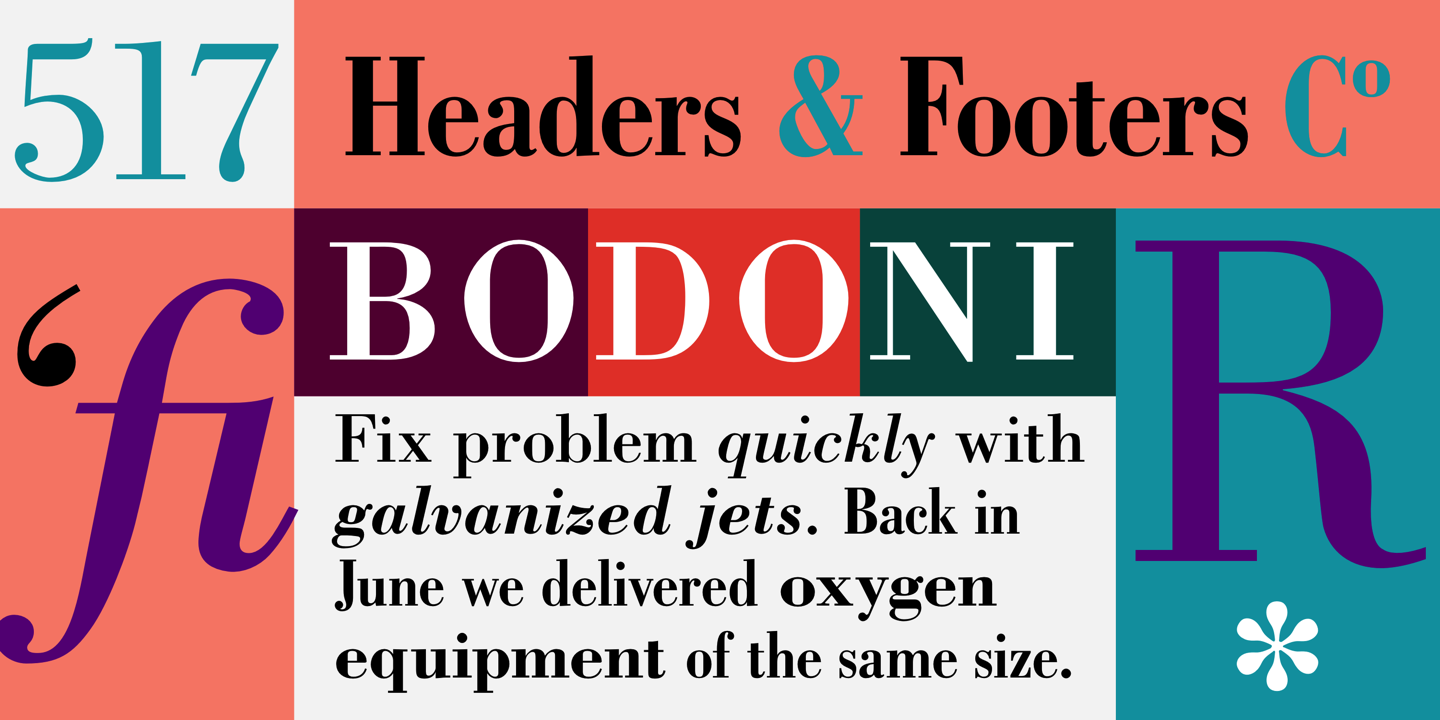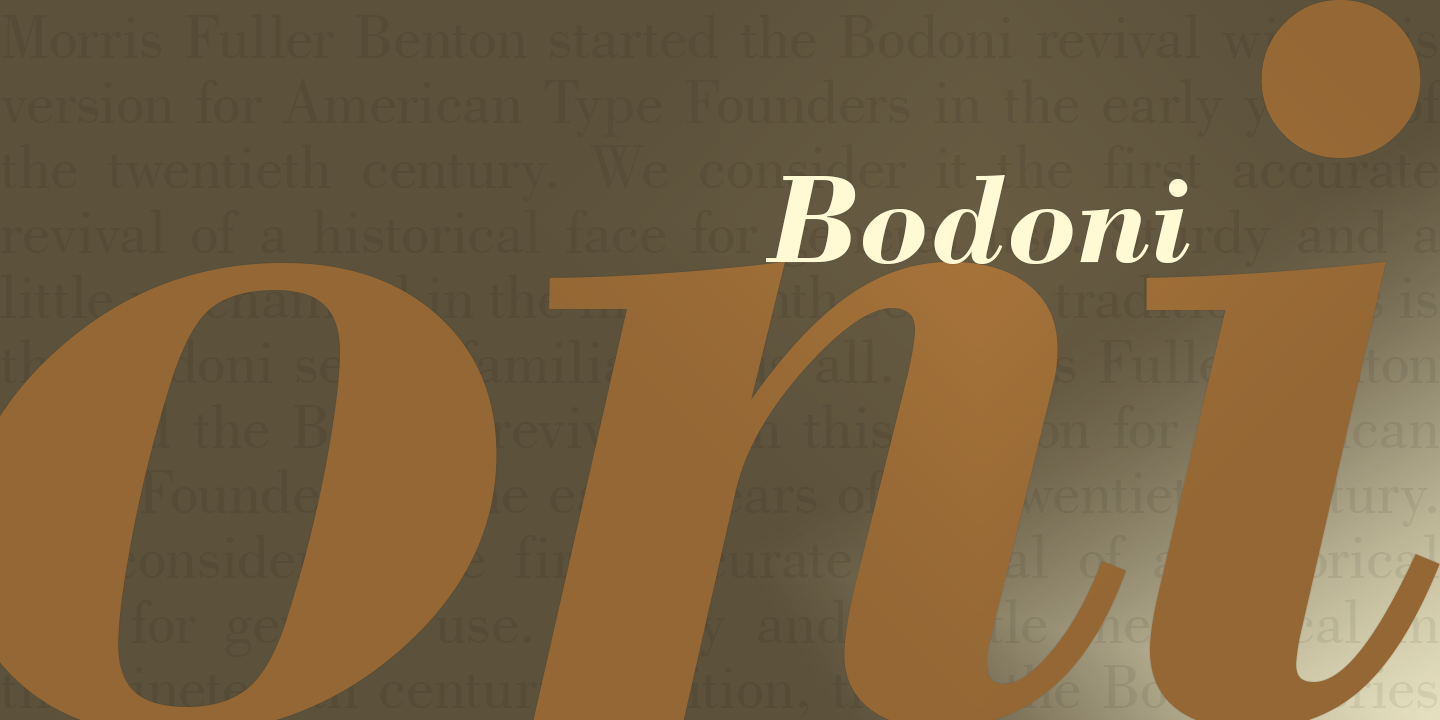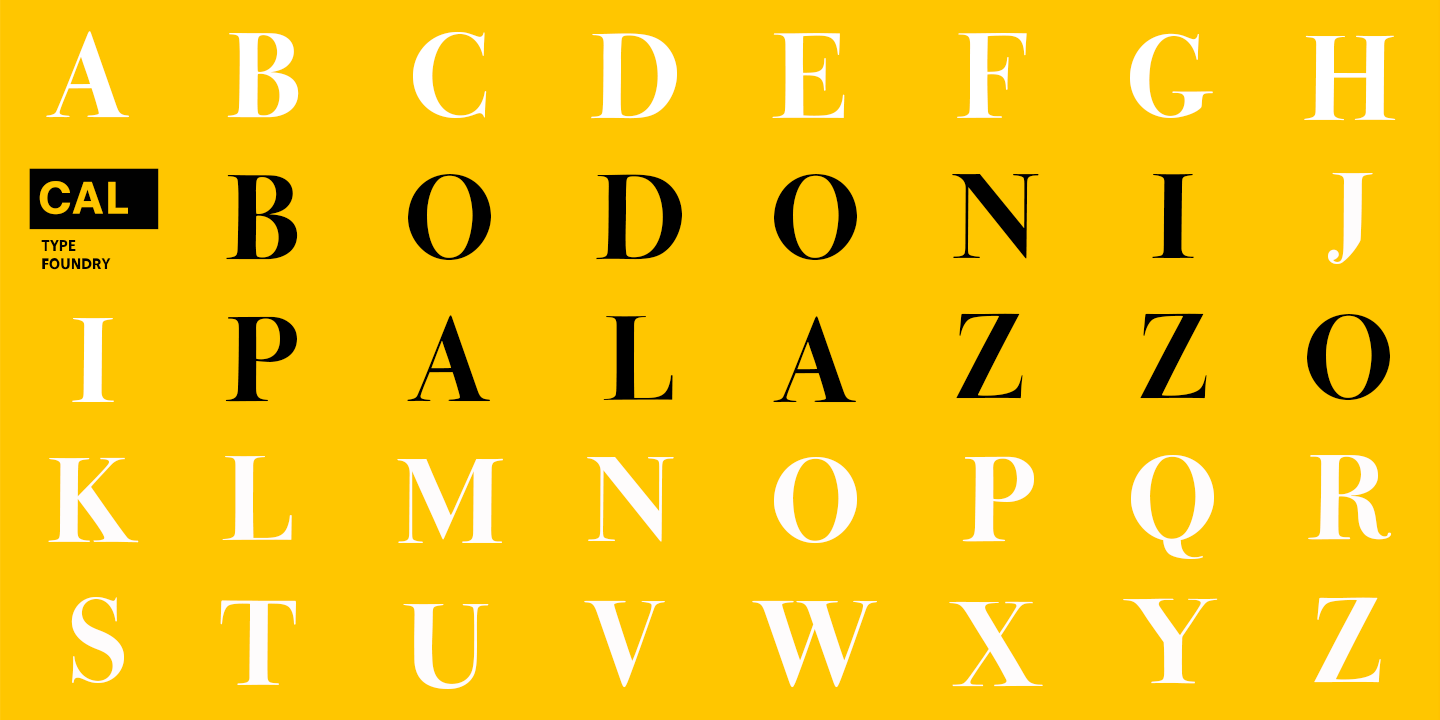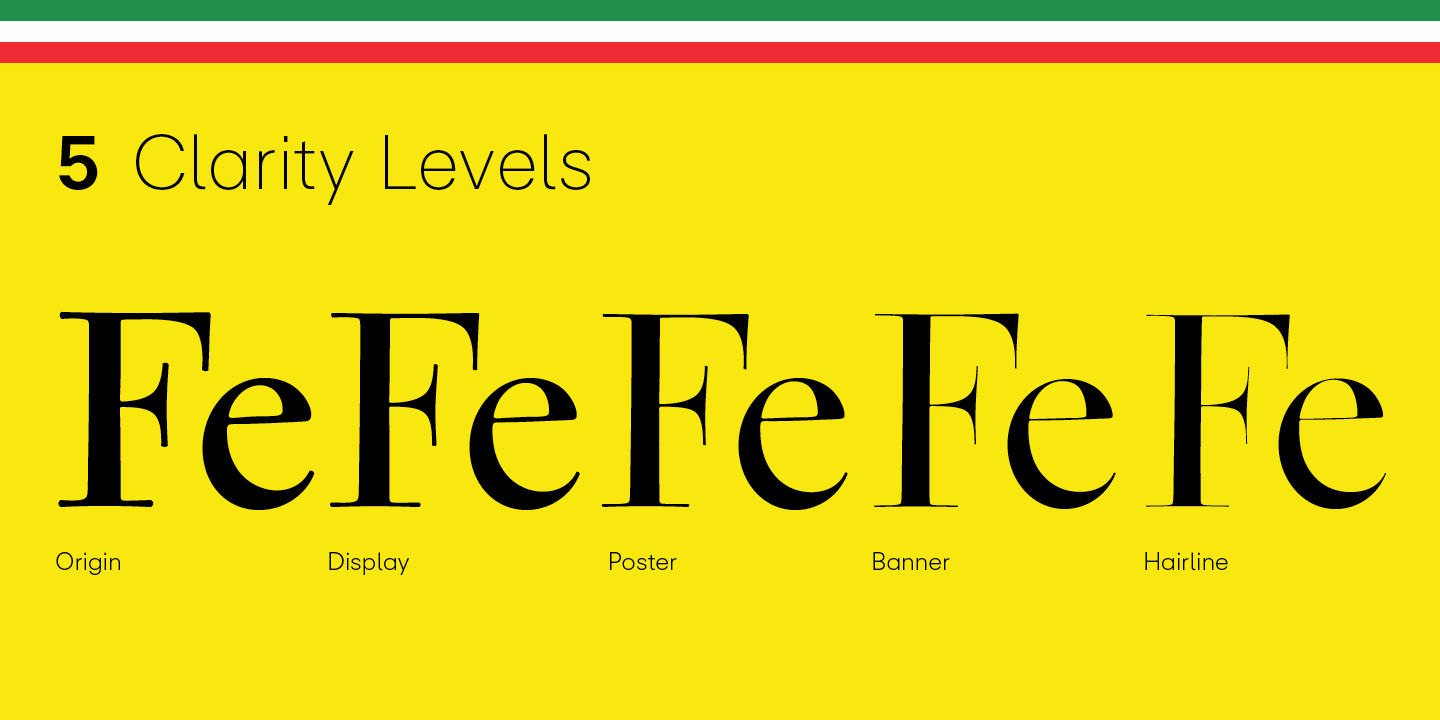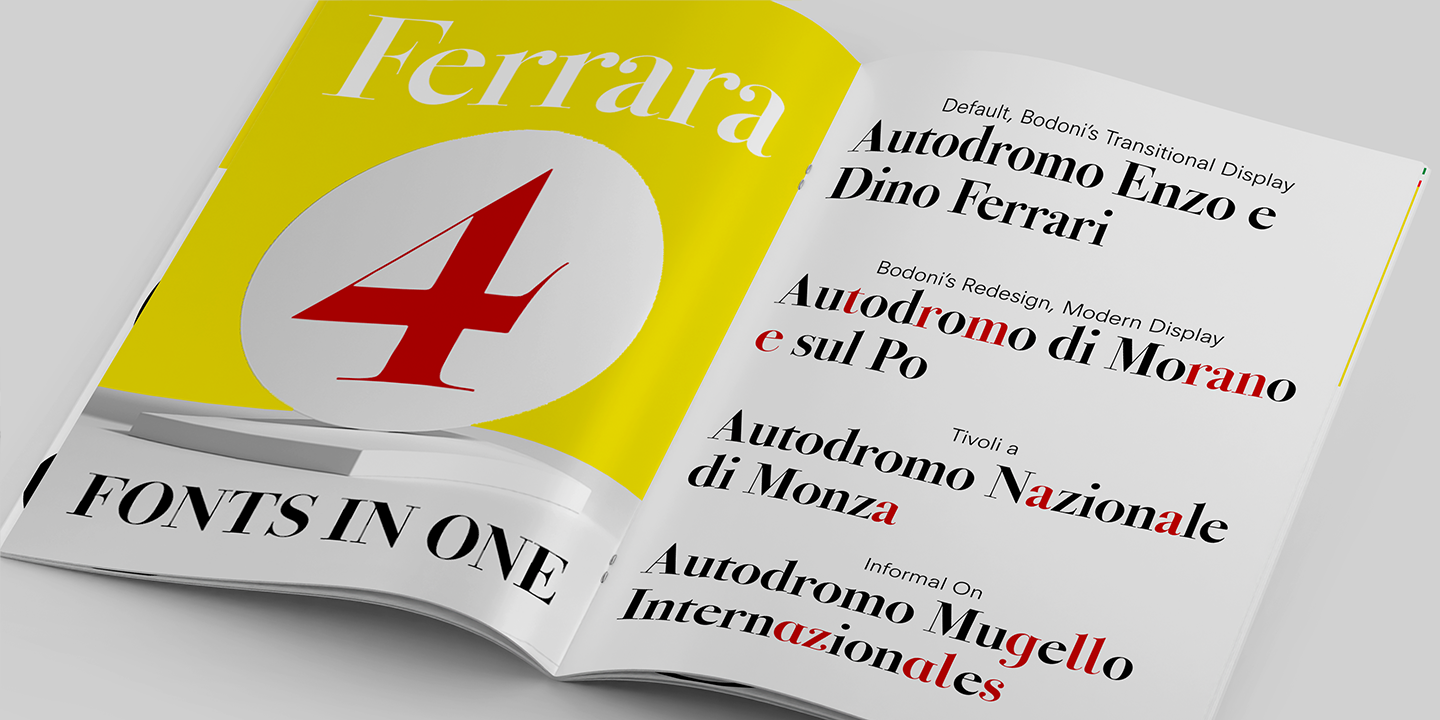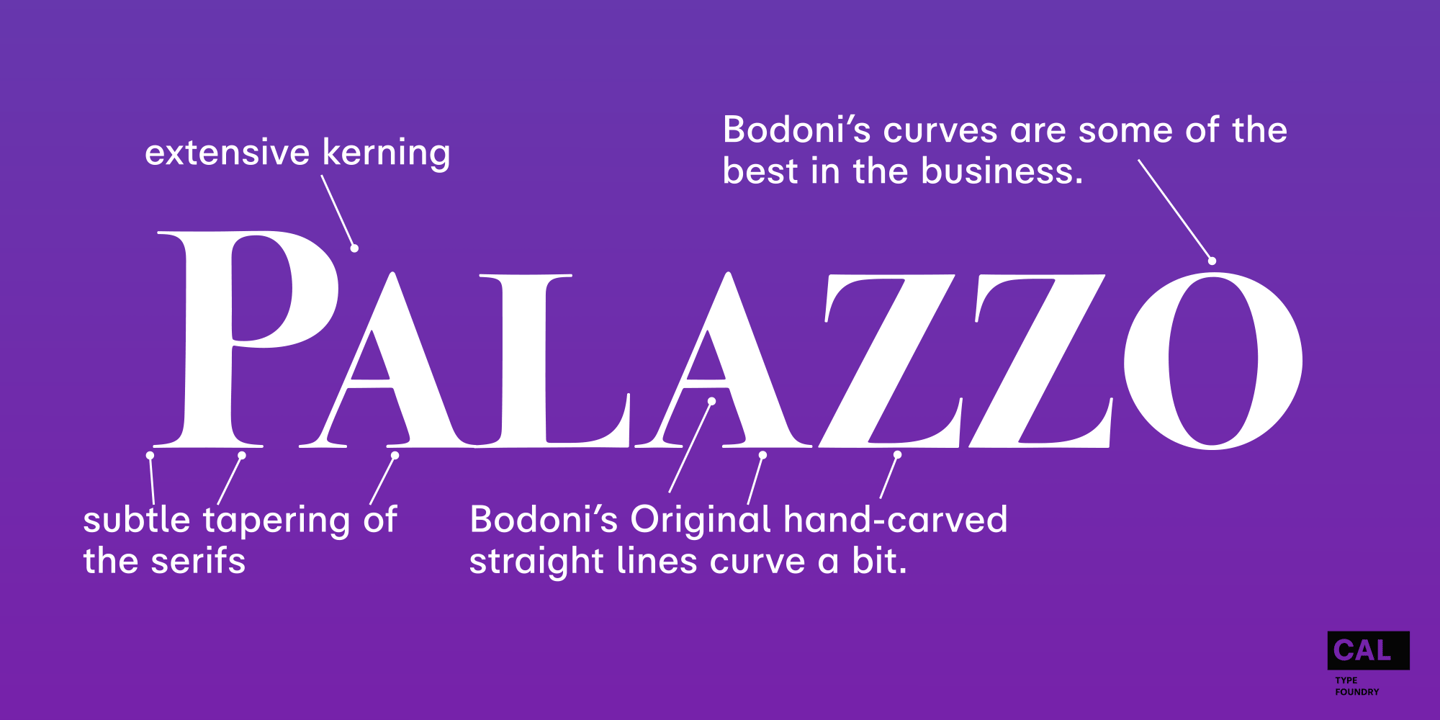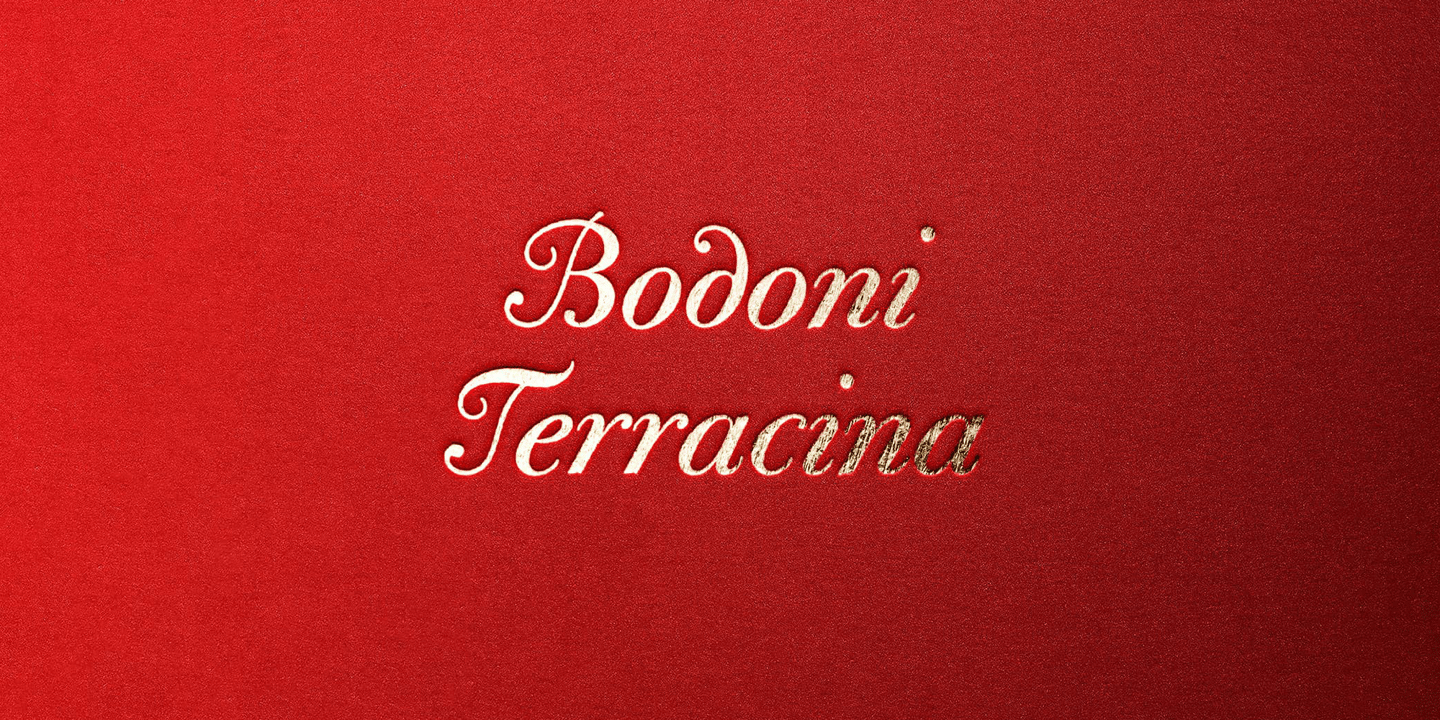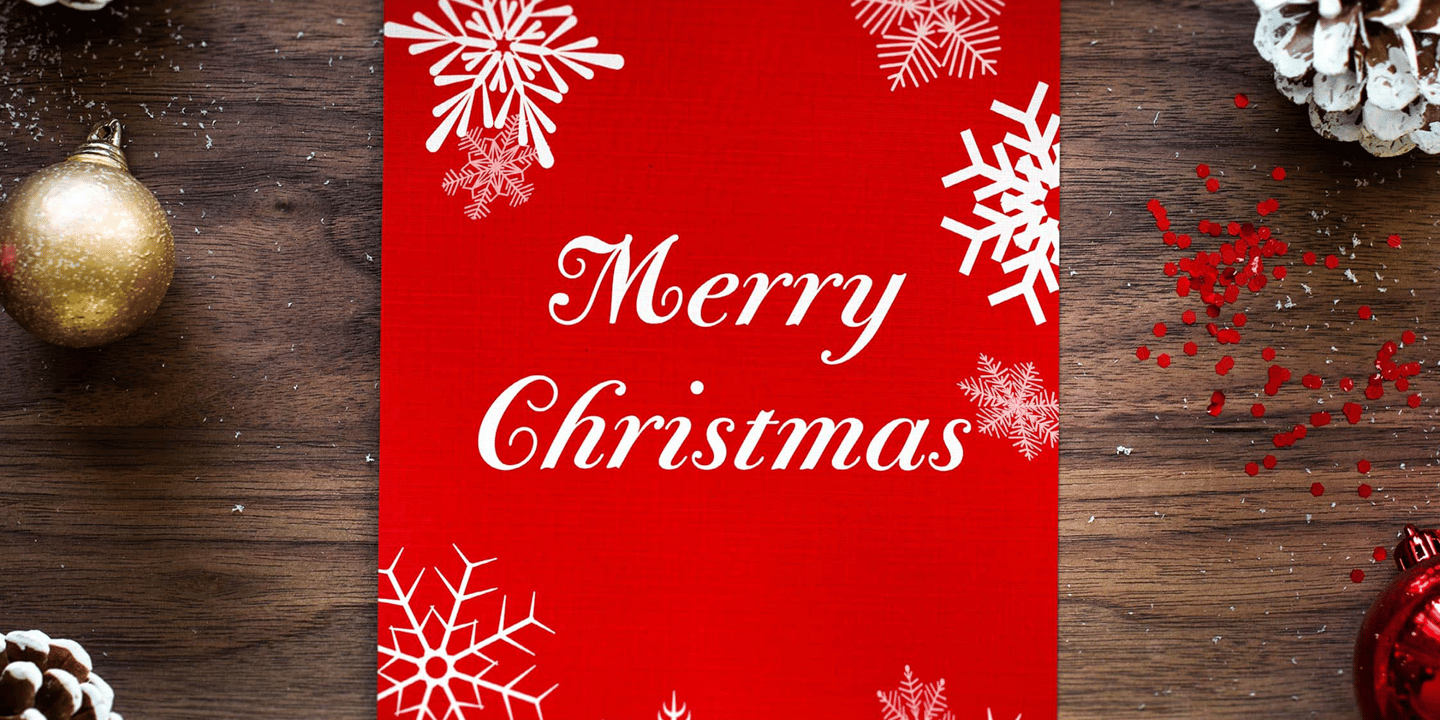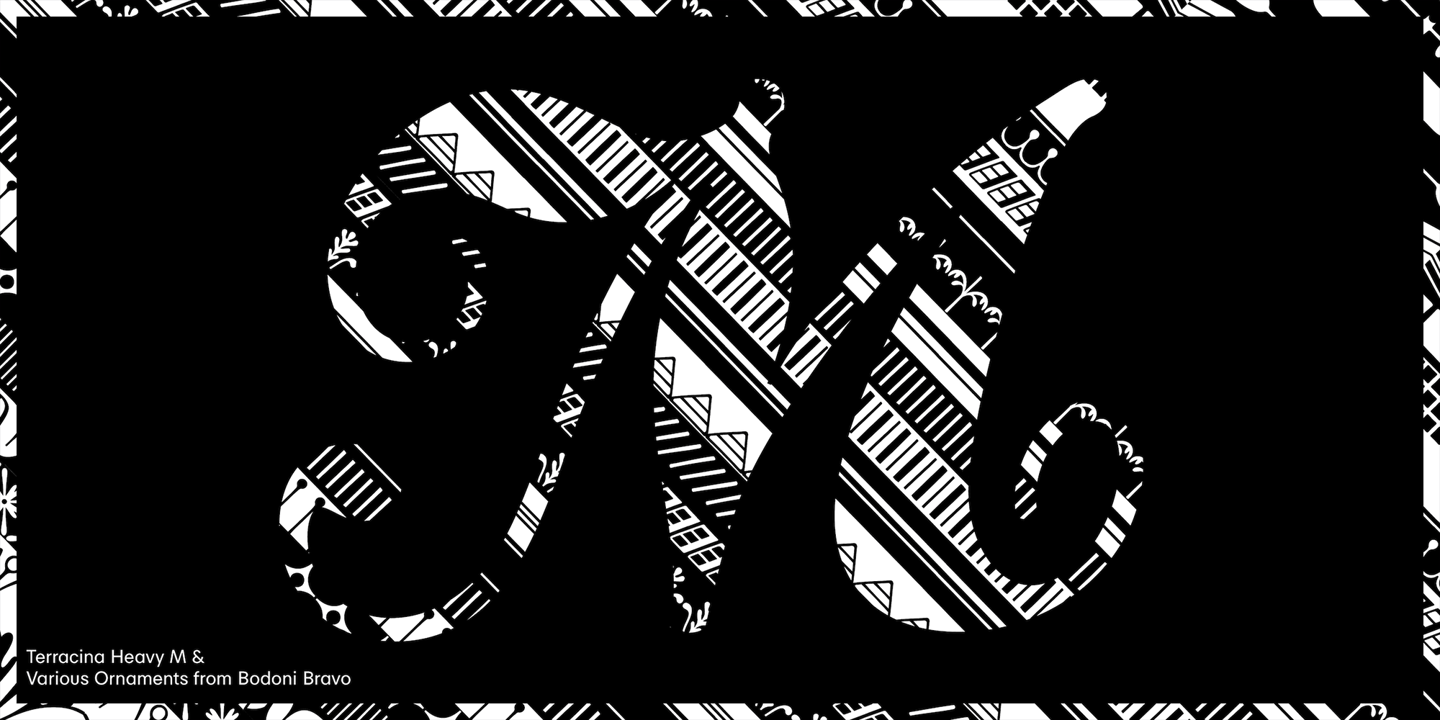
Giambattista Bodoni of Italy
Born: Saluzzo, Piedmont, 1740 Died: Parma, 1813
Italian punchcutter, typefounder and printer of Parma, admirer of Baskerville. He led in the development of the letterform we call ‘modern’ or ‘didone’, in the last years of the eighteenth century.